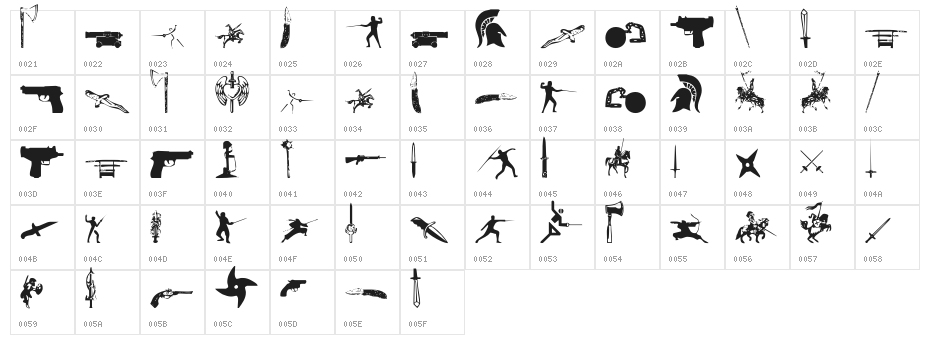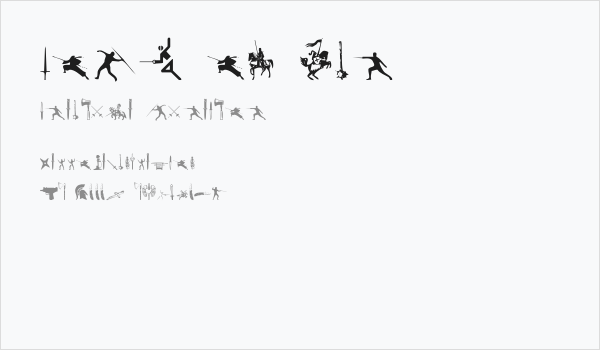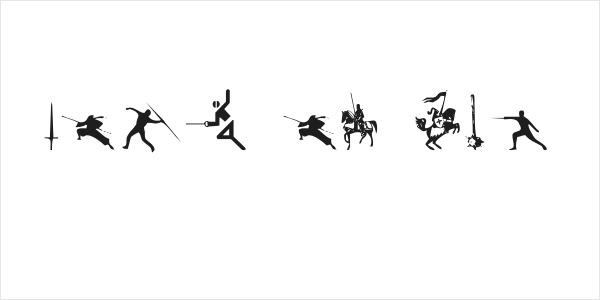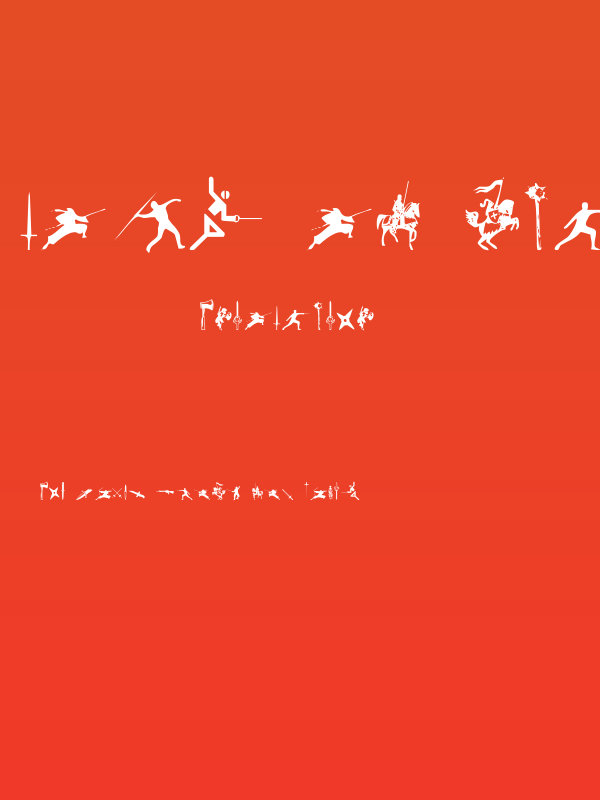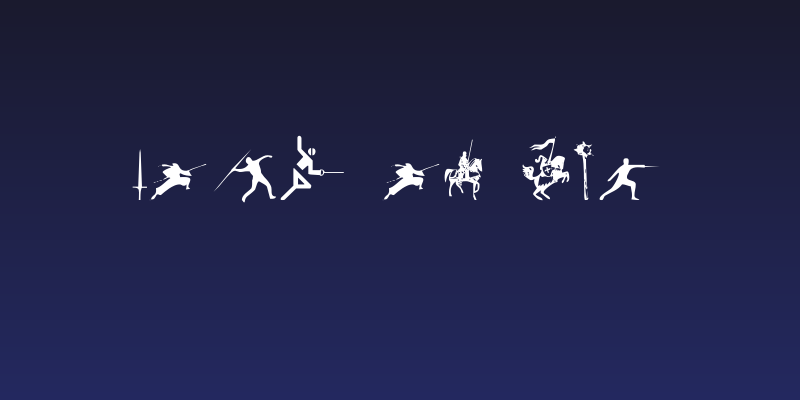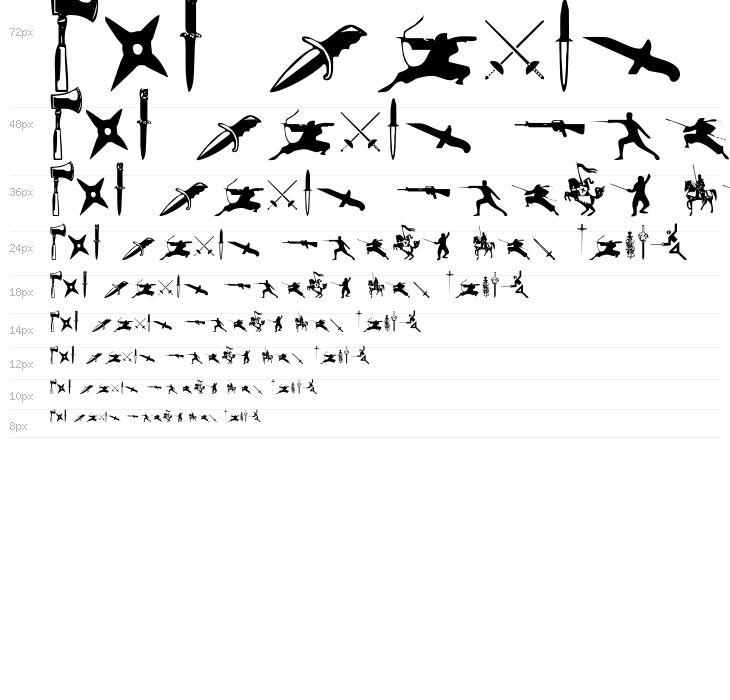
Gods of War Font
Gods of War Description
This is a decorative font featuring silhouettes of warriors, weapons, and battle scenes. Each character is represented by a unique symbol related to combat, such as swords, shields, and figures in dynamic poses. The style is bold and impactful, with high contrast between the solid black shapes and the background. The font conveys a sense of action and intensity, suitable for themes related to war, history, or adventure. The characters are evenly spaced, ensuring clarity and readability despite the intricate designs.
| Use Case | Logos, Headlines |
| Proposed Projects | Ideal for video game titles, movie posters, or themed event invitations related to war or historical battles. |